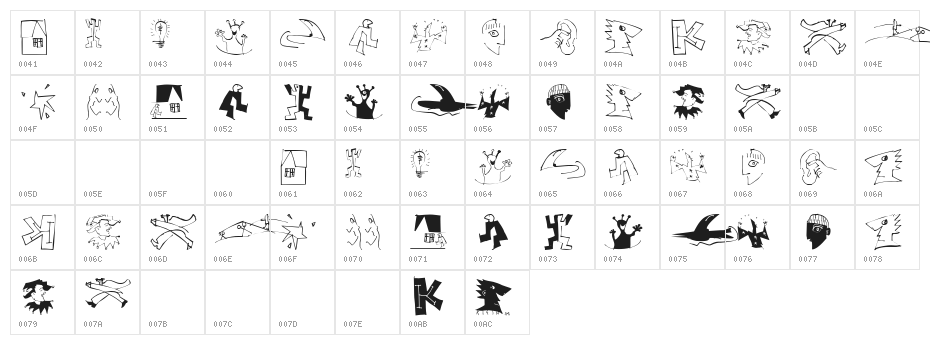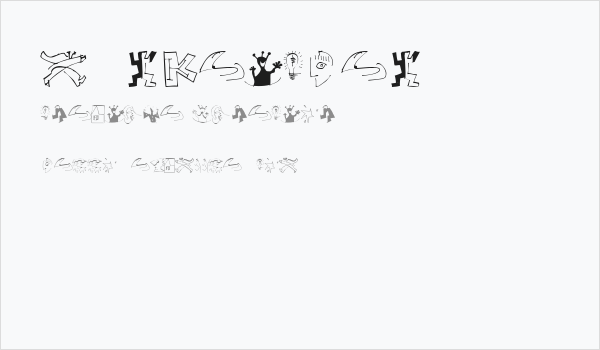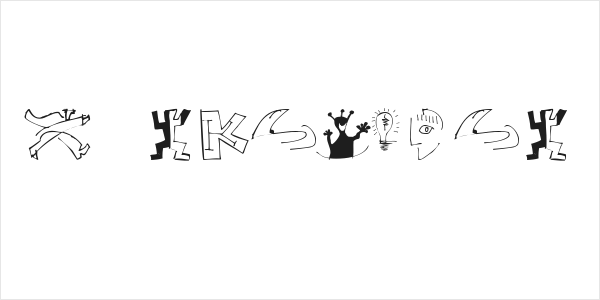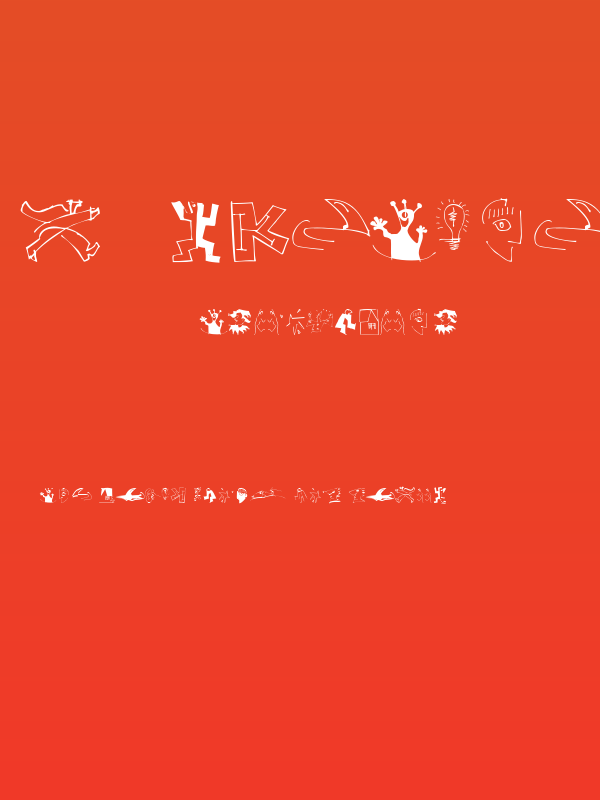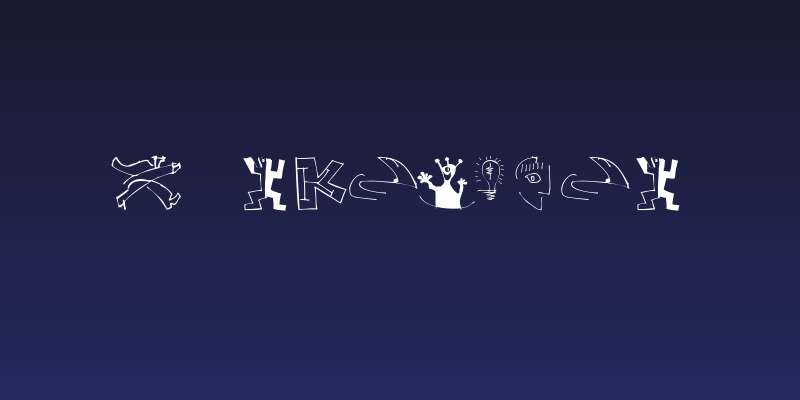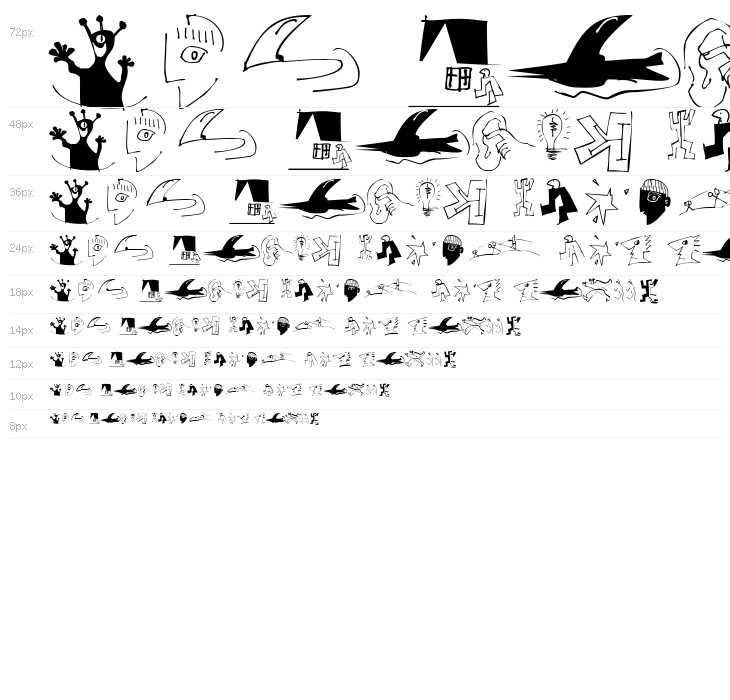
M-sKetches Font
M-sKetches Description
This font is a highly creative and illustrative design, where each character is represented by a unique sketch-like drawing. The letters are transformed into playful and imaginative figures, incorporating elements such as houses, stars, and abstract shapes. The style is whimsical and artistic, making it stand out with its hand-drawn appearance. Each character is distinct, with varying levels of detail and complexity, contributing to an overall eclectic and dynamic visual experience. The font is not uniform in style, as each letter tells its own story through its design, making it suitable for projects that require a touch of creativity and uniqueness.
| Overall Style | Artistic, Whimsical |
| Use Case | Logos, Posters, Creative projects |
| Proposed Projects | Ideal for children's books, creative posters, artistic branding, and any project needing a playful and imaginative touch. |